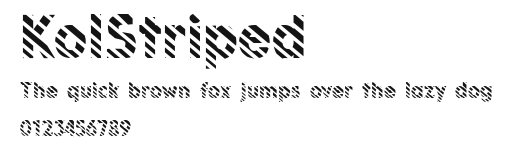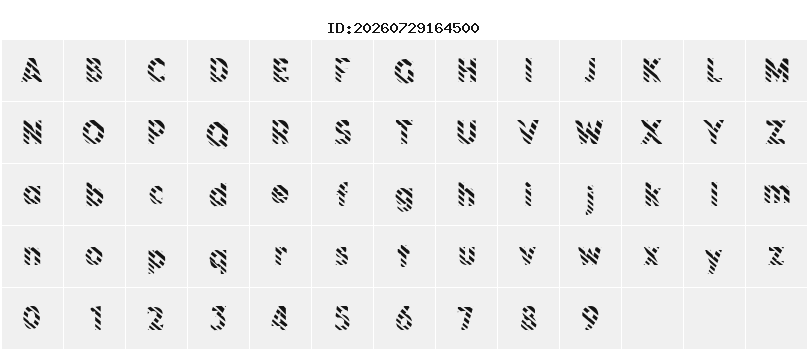
• Font Name: KolStriped
• Full Font Name: KolStriped
• PostScript Name: KolStriped
About KolStriped.ttf
KolStriped.ttf is a modern, elegant sans-serif font designed for ultimate readability and visual harmony. Perfect for branding, headlines, web design, and print materials.